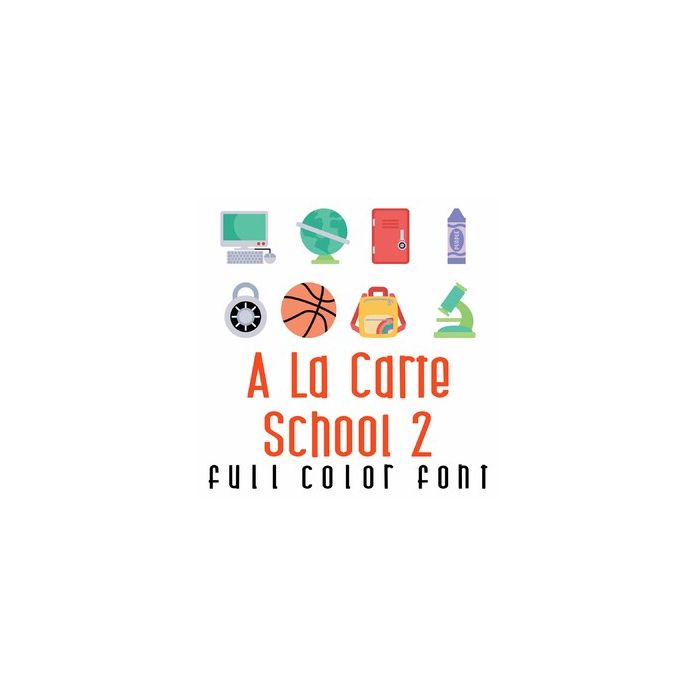
This adorable full color doodlebat font features fun school themed images from sports, science items and more! Perfect for classrooms, teachers, cards, crafts, gifts, decor, scrap book pages, planner stickers and more!